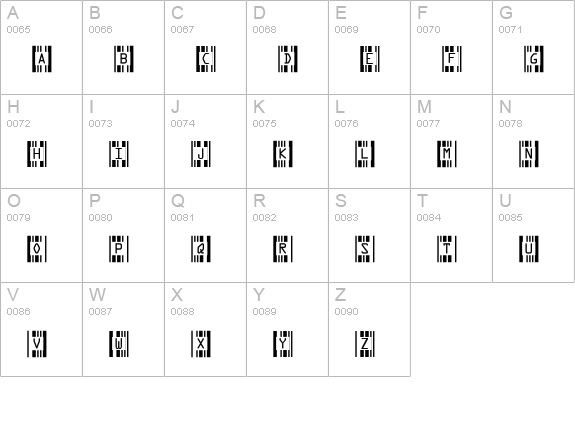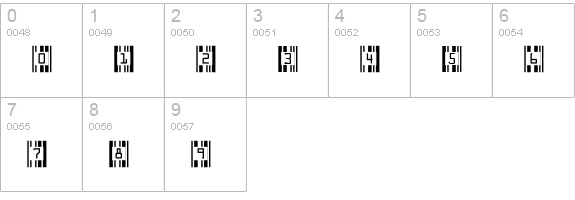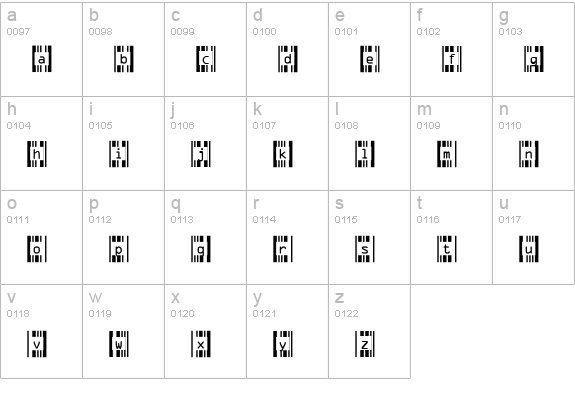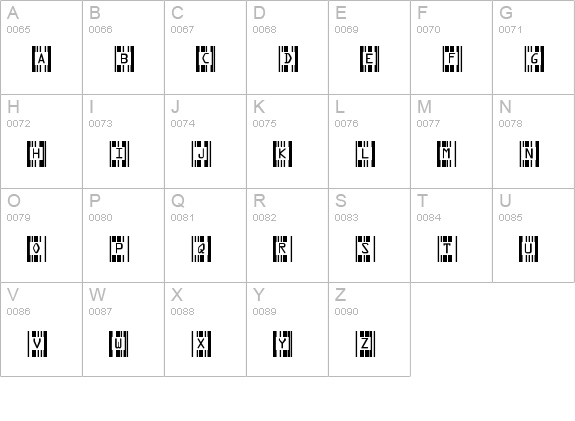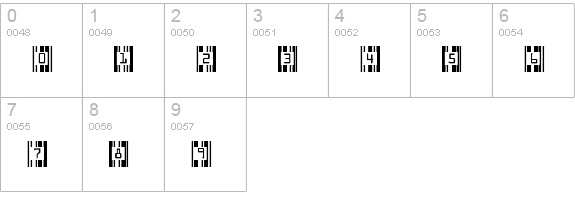
Recognition Nekkid Font Details
Recognition Nekkid font is a stunning and eye-catching typeface that is sure to make a bold statement in any design project. With its unique and intricate letterforms, this font will capture attention and leave a lasting impression. What sets Recognition Nekkid font apart is not only its striking aesthetics but also the fact that it is available for free. Yes, you read that right! This incredible font can be freely downloaded at FontsMarket.com, making it accessible to designers, creatives, and enthusiasts alike. Featuring a perfect balance between elegance and edginess, Recognition Nekkid font is versatile and can be used in a variety of design applications. Whether you are working on a logo, branding, packaging, or even a website, this font will add a touch of sophistication and uniqueness to your project. The attention to detail in Recognition Nekkid font is truly remarkable. Each letter is meticulously crafted, with sharp lines and graceful curves that create a harmonious visual composition. The font's versatility is further enhanced by its wide range of weights and styles, allowing you to experiment and create captivating typography. Whether you are a professional designer or a hobbyist, Recognition Nekkid font is a must-have in your font collection. Its timeless appeal and seamless integration into any design make it a valuable asset for any project. So why wait? Head over to FontsMarket.com and download Recognition Nekkid font for free today. Unleash your creativity and let this font elevate your designs to new heights.